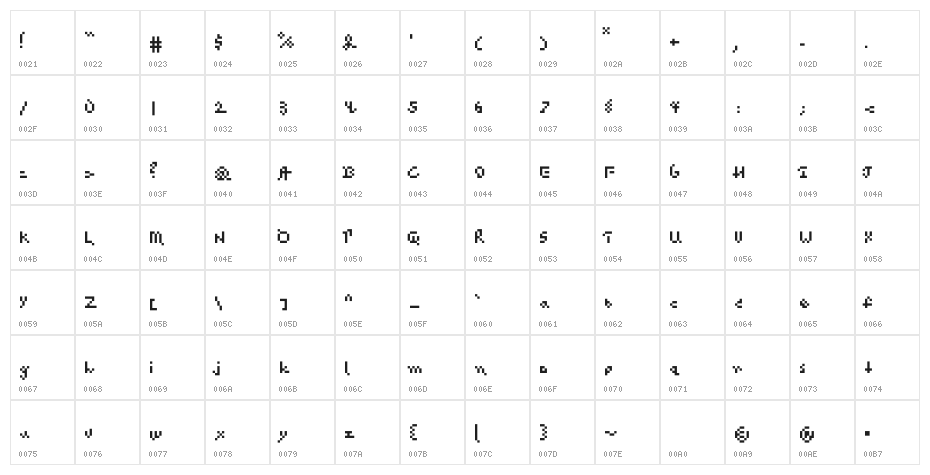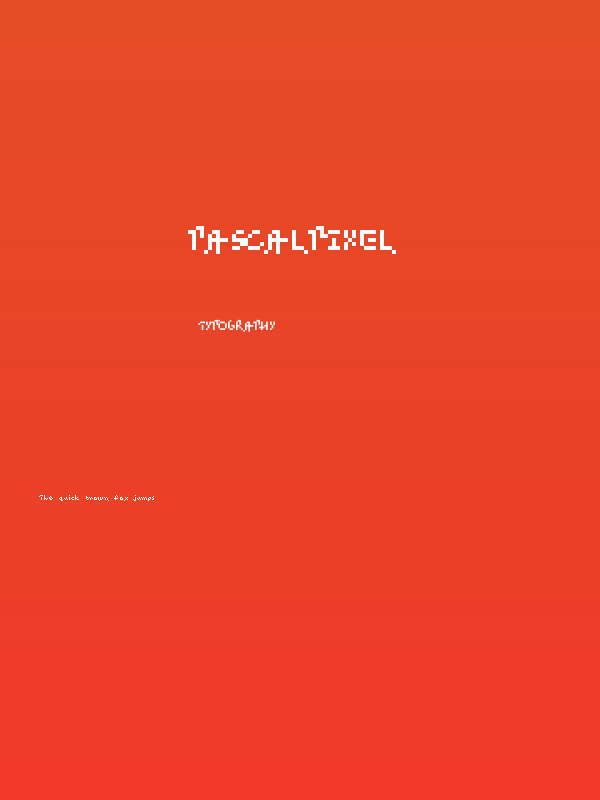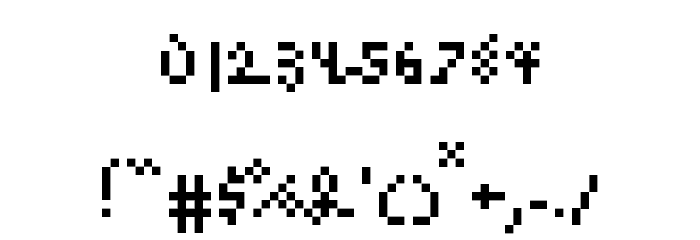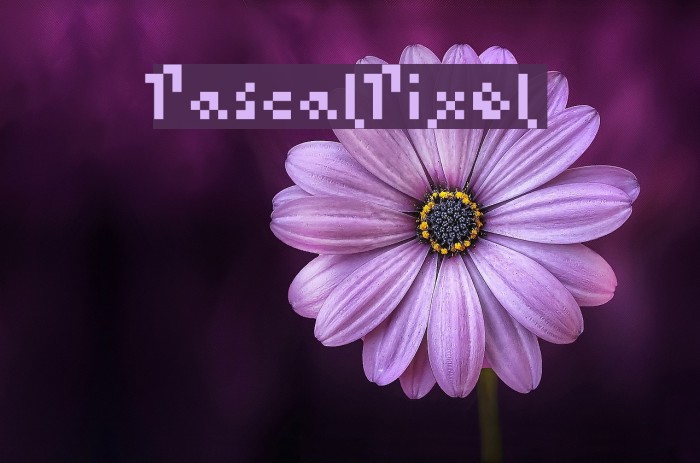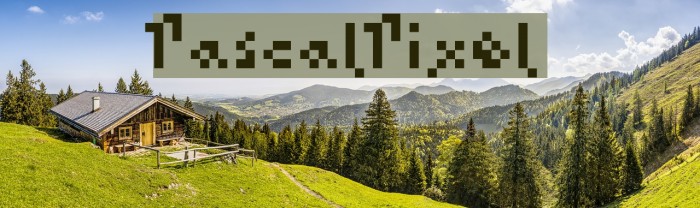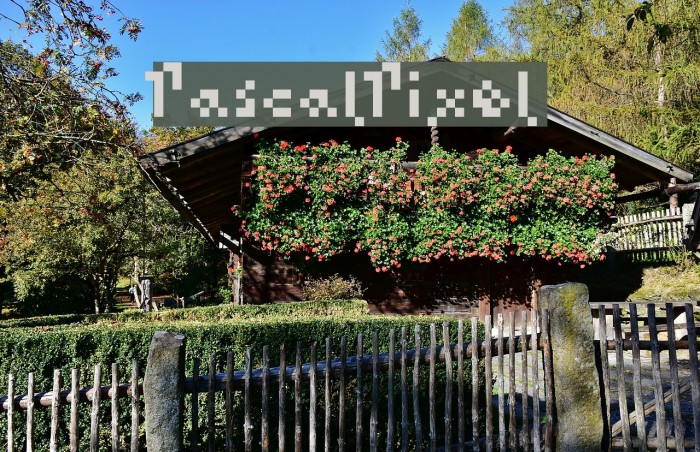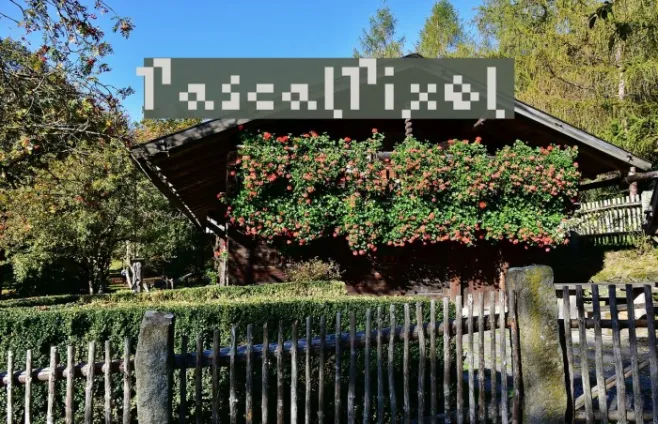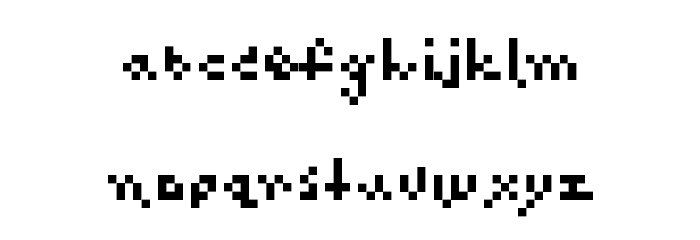
PascalPixel Font
PascalPixel Description
This font features a pixelated, retro aesthetic reminiscent of early computer graphics and video games. Each character is constructed with a blocky, grid-like structure, giving it a distinctly digital feel. The uppercase letters are bold and prominent, while the lowercase letters maintain a consistent style with slightly reduced height. Numerals and special characters are designed to match the overall pixelated theme, ensuring uniformity across all glyphs. The font's simplicity and geometric precision make it ideal for projects that aim to evoke nostalgia or a vintage tech vibe. Its clear legibility at small sizes is a testament to its design rooted in early digital displays.
| Use Case | Logos, Headlines, Digital Art |
| Proposed Projects | Ideal for retro video games, digital art projects, tech-themed posters, and nostalgic branding. |